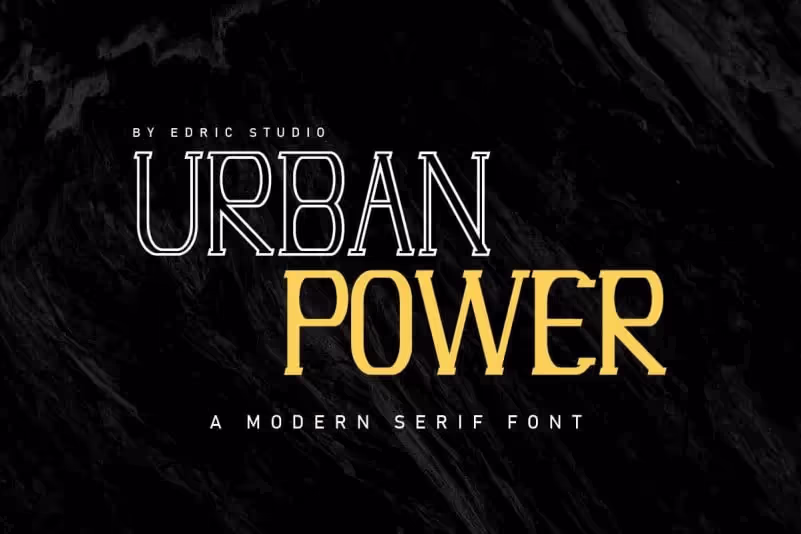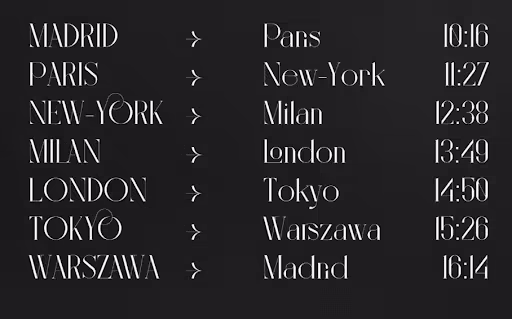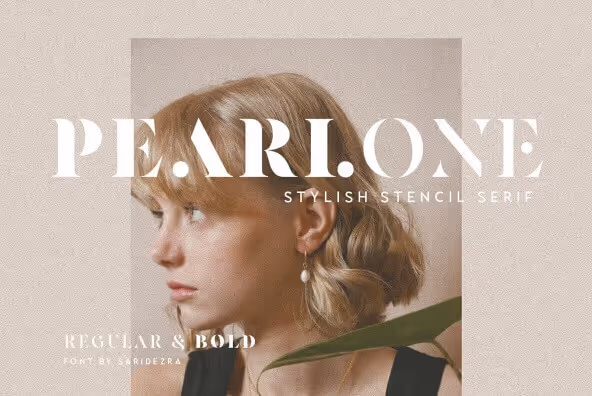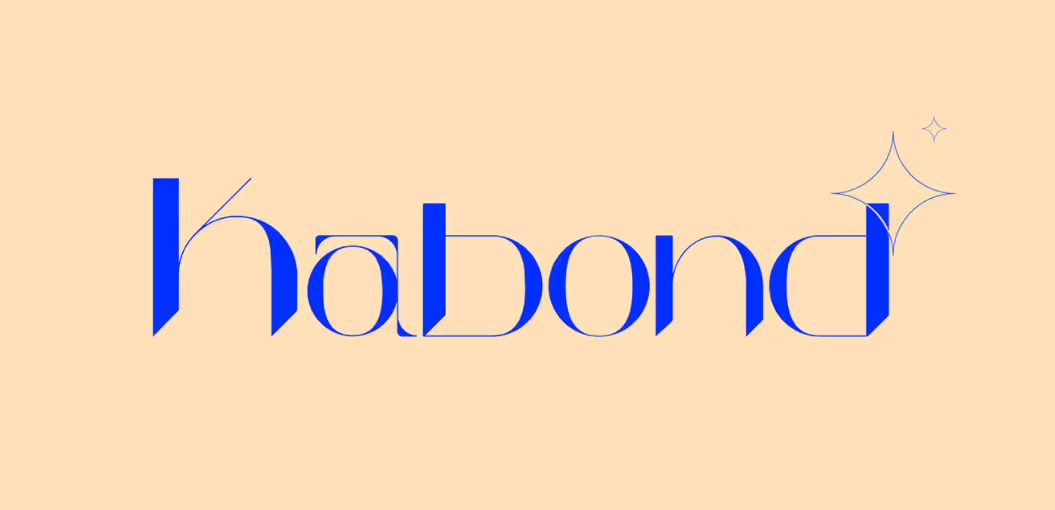
19 Urban Fonts That Are The Epitome of Cool
Looking for some edgy and modern fonts to use for your business or online content? Take a look at our selection and see if you can find something you like.
When we think about urban fonts, the first thing that comes to mind is grunge retro design. However, an urban aesthetic can mean a lot of different things, and naturally this goes for your choice of typography.
Brush fonts
Let’s start with typography that’s often associated with graffiti, and therefore has a strong urban aesthetic. These typefaces come in cursive and print scripts.
1. Attack Graffiti (free)
This great free font mimics the feel and style of graffiti and is perfect for any urban-inspired design, from posters to display signage. It comes in TTF format only.
2. Youth Touch ($49)
We mentioned this font in our article on Yearbook fonts, thanks to its hip youthful energy. It’s a script font with high legibility, so you can even use it for smaller blocks of text. The commercial use license isn’t cheap, but it can be a good investment, thanks to the font’s versatility. It’s free for personal use though, so you can download a demo version before you commit to a purchase.
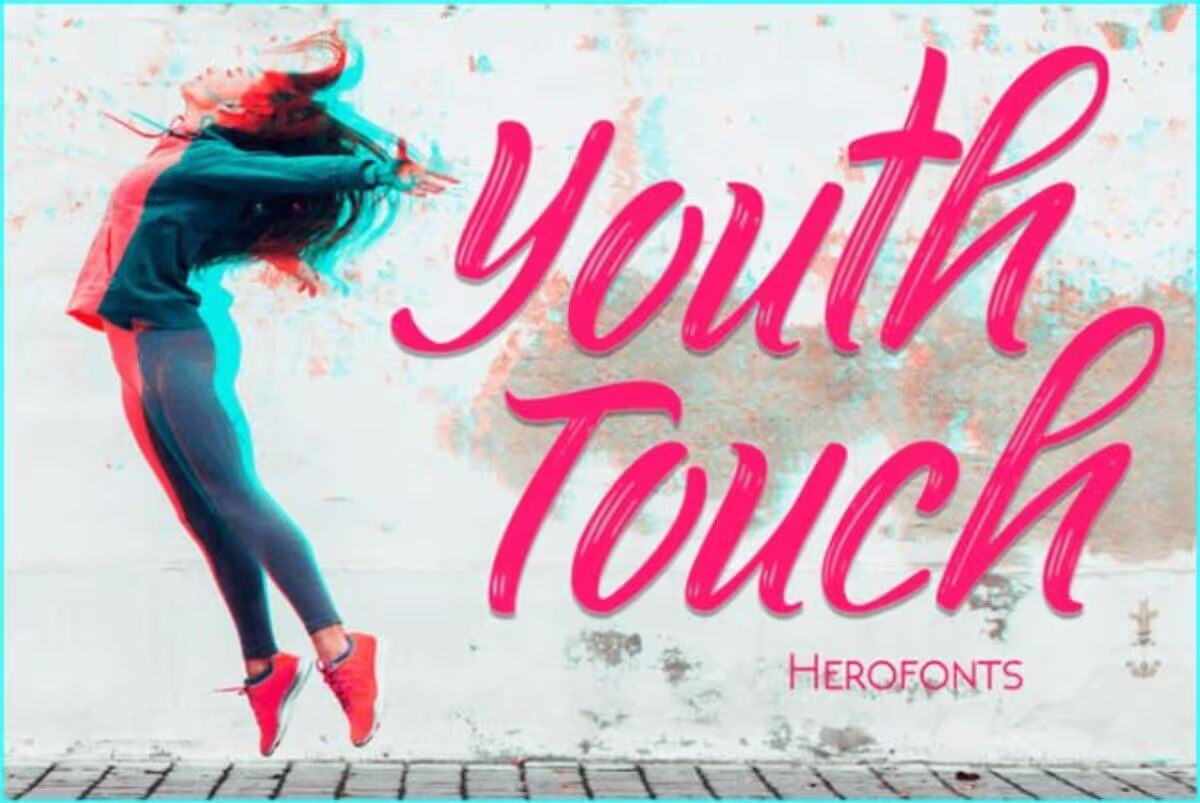
3. Black Theory (from $17)
This grungy, rough font is perfect for edgy and modern businesses. The coarse strokes and ligatures give this font a dramatic feel, so it might even make a great logo font for modern urban wear brands.
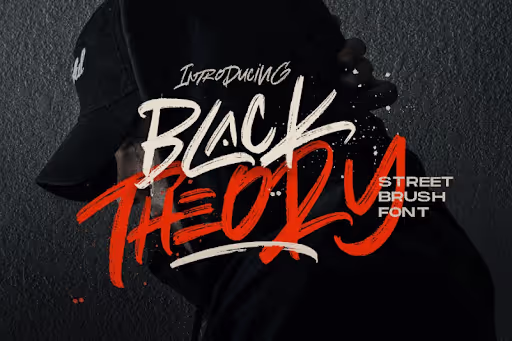
4. Boomboyah ($10)
This brush font could easily double as a Halloween typeface, thanks to it’s gritty, textured quality. It comes in lower and uppercase, supports several languages with the Latin alphabet, and even includes a few quirky dingbats, so at just $10 it’s a really good investment.
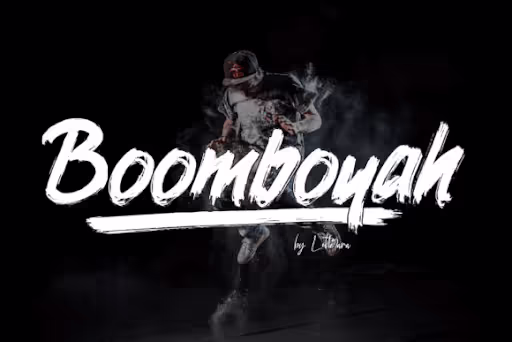
5. Brave Heart (from $14)
This display font comes in uppercase only. Thanks to the textured lettering, it’s certainly an eye-catching font, so you should probably use it sparingly. It comes in OTF and TTF format.
Modern sans serif fonts
Sans serif typography is often seen in crisp, professional design. However, this is a huge font family, which includes some amazing and highly creative examples that fit edgy, urban design.
6. Dock 51 (free for personal use)
I don’t know about you, but this font really reminds me of the movie Fight Club, which is a very fitting source of inspiration for urban designs. It’s a bold font with great texture so even if you have no proficiency in design software like Photoshop, you will be able to use this font to create some dramatic and stunning designs. You need to contact the graphic designer to obtain a full commercial license.
7. Trashhand (free)
If you opt for a very bold font to use as a display or logo font, you might need something a little more toned down to use for your tagline. Trashhand is a great handwritten font with a casual feel. It includes upper and lowercase glyphs. The font is a free download available at Font Squirrel.
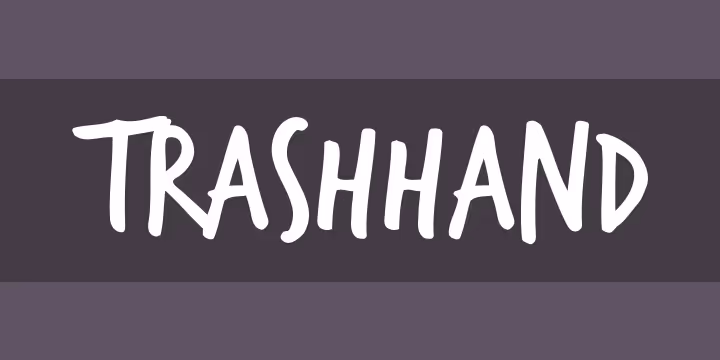
8. Gover (free)
How about something that’s futuristic and retro at the same time? Well, this great font is just that, and it’s suitable for a variety of uses. It comes in uppercase and stencil style in lowercase, including numbers and punctuation symbols.
9. Penultimate (free)
If you want an edgy and unique font, look no further than this impressive linear font. It’s got a little bit of an Art Deco feel, however it’s a very modern updated version, suitable for all sorts of urban businesses: from hip coffee shops to edgy boutiques!
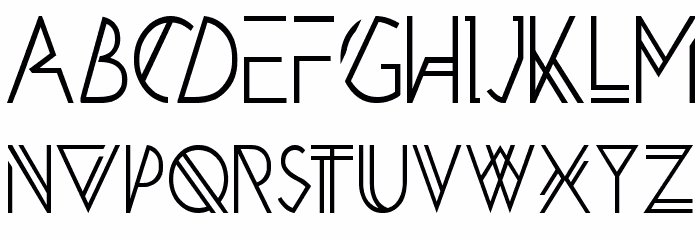
10. Silba ($15)
Thanks to the slightly curved edges, the narrow lettering on this font can also be stretched out vertically, so it’s a great font to have to use on all sorts of design templates: from social media posts to flyer design. It’s a crisp, geometric font that would probably be great for tech logos and in any type of SaaS design.
Artistic serif fonts
As we said in the beginning, not everything urban is necessarily grunge or dingy. Urban spaces are also characterized by high fashion and culture, and some of these gorgeous serif fonts can be a great way to achieve a more high-end urban look. While italic and cursive fonts might offer a more organic and nature-inspired feel, these print serifs are great for modern urban designs!
11. Gallery Typeface (from $14)
This typeface has an Art Nouveau feel to it, but with a modern twist. It definitely looks like it belongs in an edgy, urban gallery, so if you want to promote an event this might be the perfect font for you. It would also look great on modern and classy beauty packaging. It comes in several file formats: CSS, OTF, WOFF, HTML and TTF.
12. Ethery (from $14)
A similar font, but with a more romantic feel is Ethery. It includes upper and lowercase letters, as well as discretionary ligatures, and comes in several file formats. This stunning font also supports Cyrillic lettering, so if this is something you need, definitely consider a purchase.